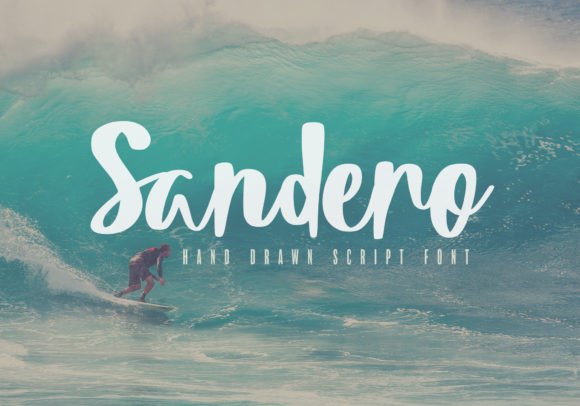
Step into the world of Sandero, a font that exudes boldness and cool elegance. This exquisite handwritten script is crafted to make a statement, turning your creative visions into stunning realities. With Sandero, you'll embark on a typographic journey where impact and charm intertwine. Whether you're a designer seeking a touch of individuality or a creative mind yearning for expression, Sandero is your perfect companion.
Sandero unravels its beauty in a myriad of applications. Let your imagination soar as you craft captivating logos that leave an indelible mark on your audience. Unleash your storytelling prowess with the captivating allure of Sandero in your book covers, leaving readers mesmerized from the first page. With this font, invitations and greeting cards transform into enchanting portals of heartfelt emotions. And when it comes to social media, let Sandero ignite your posts with a spark that ignites engagement and leaves a lasting impression.
Beyond its visual appeal, Sandero beckons you on a sensory adventure. Feel the rush of adrenaline as your designs take on a life of their own, igniting emotions and captivating hearts. Dive into the world of Sandero and discover a symphony of visual harmony, where each letter dances with grace, leaving a trail of elegance in its wake. With this font as your muse, your creations will transcend the boundaries of the ordinary, leaving an indelible mark on the hearts and minds of your audience.
Embark on this typographic odyssey with Sandero, the font that transforms your creative endeavors into masterpieces. Let your imagination ignite as you explore its boundless possibilities, leaving a legacy of unforgettable designs that speak volumes. Embrace the boldness, savor the coolness, and create a visual legacy that resonates with the world.